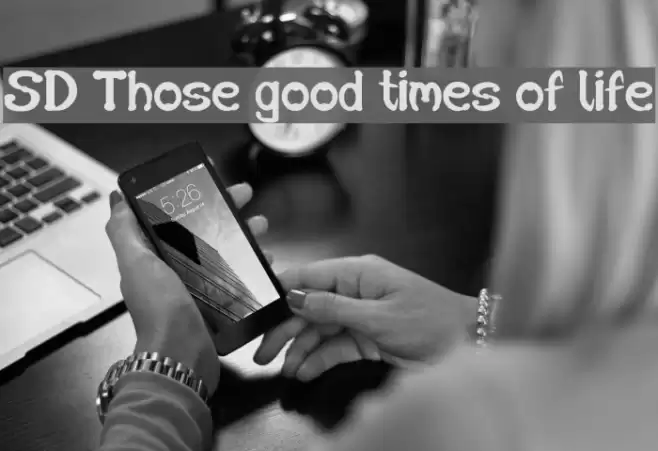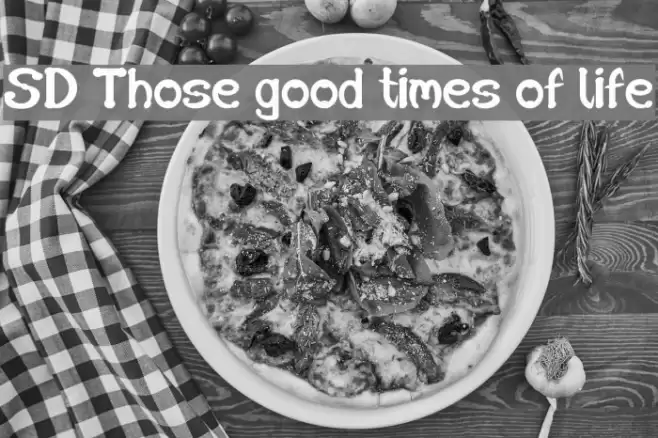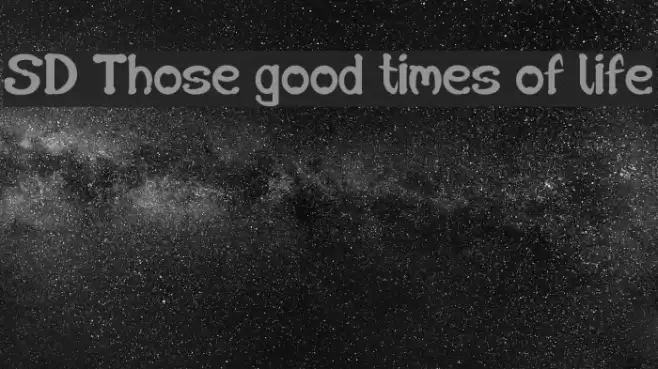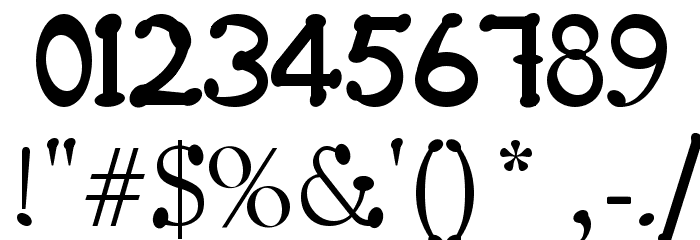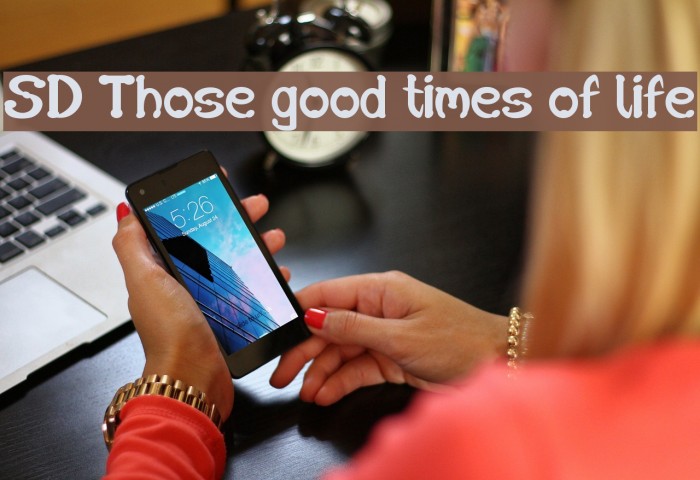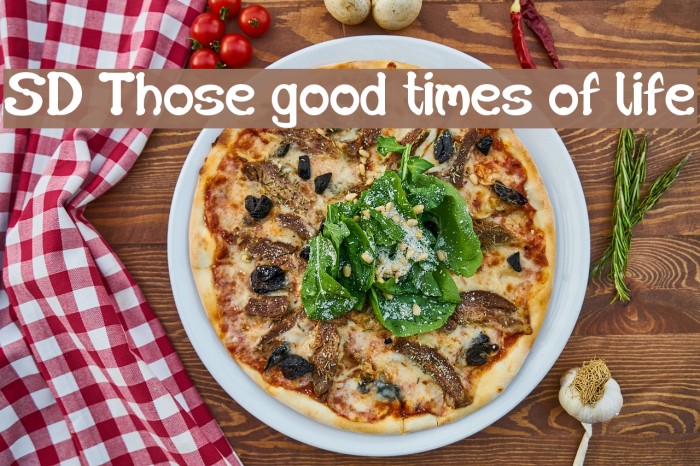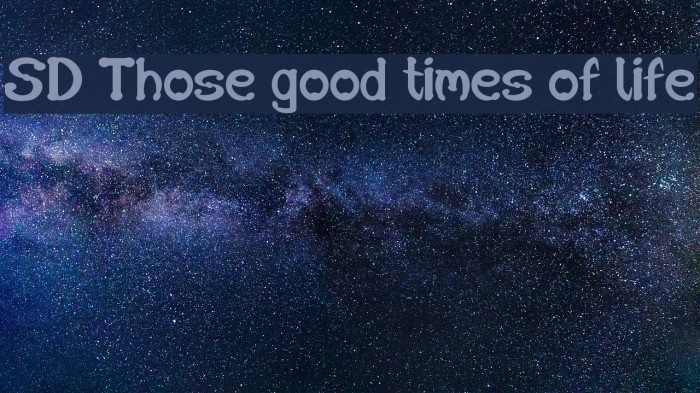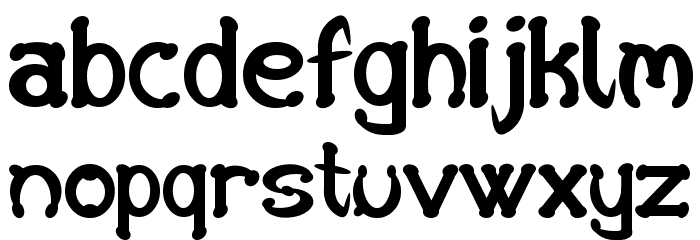
SD Those good times of life Font
SD Those good times of life Description
This font features a playful and whimsical design with rounded edges and a slightly uneven baseline, giving it a hand-drawn appearance. The characters are bold and have a consistent stroke width, contributing to a friendly and approachable look. The uppercase letters are slightly more structured, while the lowercase letters exhibit more curves and personality. Numbers and special characters maintain the same playful style, ensuring uniformity across all elements. This font is ideal for projects that require a touch of fun and creativity, such as children's books, playful branding, or casual invitations.
A playful, hand-drawn font with rounded edges and a whimsical style from Fancy fonts.
- Proposed Projects: Children's books, playful branding, casual invitations, creative posters.
- Overall Style: Playful, Whimsical